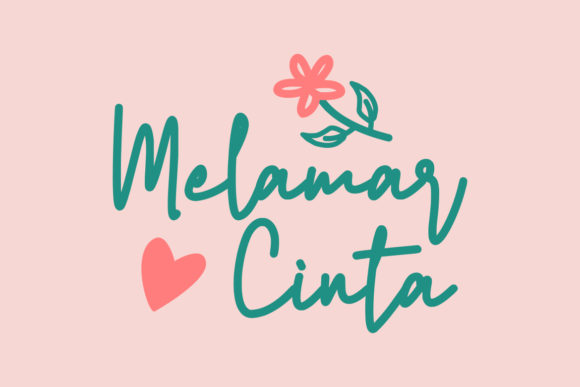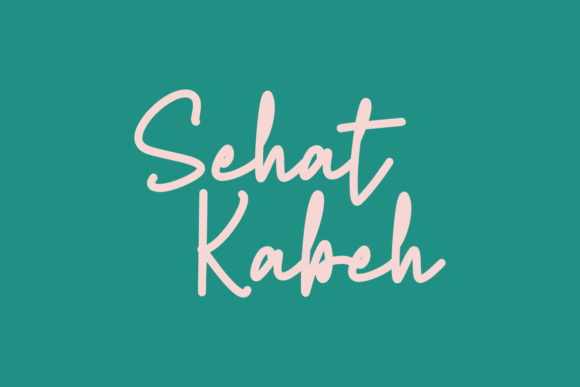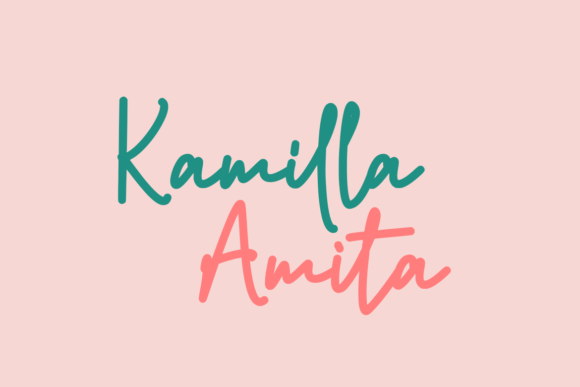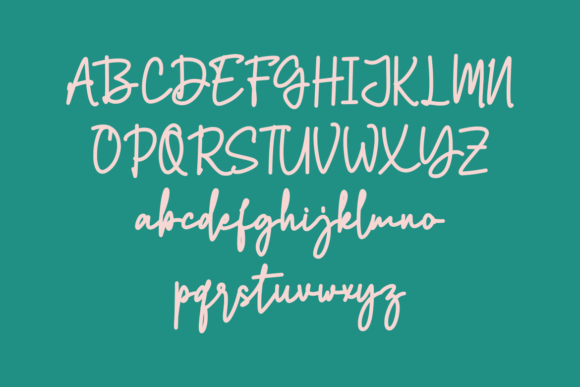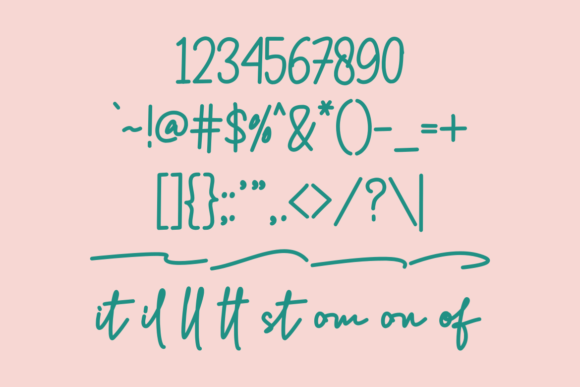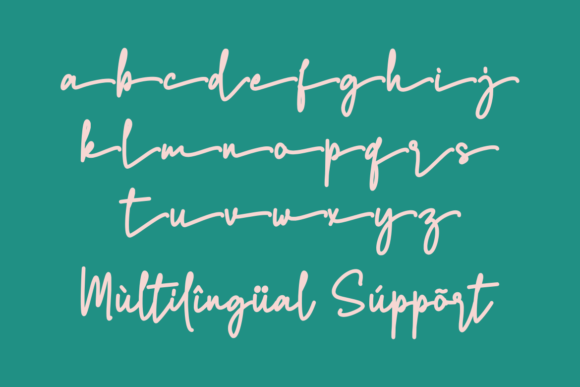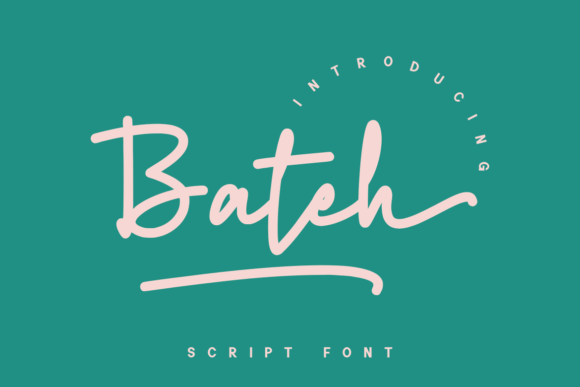
Bateh Font: Elevate Your Designs with Delicate Elegance
In the realm of typography, few fonts manage to capture the essence of elegance and versatility as effectively as the Bateh Font. This delicate and elegant handwritten font has been making waves in the design community, and for good reason. Its distinct and well-balanced letters make it a masterpiece, perfect for designers and crafters looking to add a touch of sophistication to their projects.
The Characteristics of Bateh Font
Bateh Font is a true gem in the world of typography. Its unique characteristics include:
• Delicate and Elegant: Bateh boasts a refined and sophisticated aesthetic, making it perfect for projects that demand a high level of elegance.
• Handwritten Style: The font’s handwritten style lends a personal and organic feel to any design, setting it apart from more traditional fonts.
• Distinct and Well-Balanced Letters: Each letter in the Bateh Font is meticulously crafted to ensure a harmonious and balanced look, making it a joy to read and behold.
• Incredibly Versatile: Whether you’re working on a wedding invitation, a branding project, or a digital platform, Bateh adapts seamlessly to any context.
Why Designers and Crafters Love Bateh Font
Bateh Font’s versatility and elegance have won the hearts of designers and crafters worldwide. Here are a few reasons why:
• Enhances Readability: Despite its delicate nature, Bateh Font maintains excellent readability, making it suitable for both headings and body text.
• Perfect for Branding: The unique and elegant style of Bateh makes it an excellent choice for branding projects, helping businesses stand out with a distinctive voice.
• Easy to Pair: Bateh Font pairs well with a variety of other fonts, offering endless possibilities for creative combinations.
• Supports Multiple Languages: For designers working on international projects, Bateh Font’s extensive language support is a significant advantage.
Creative Applications of Bateh Font
The creative potential of Bateh Font is vast. Here are some popular applications:
• Wedding and Event Stationery: Add a touch of elegance to wedding invitations, save-the-date cards, and other event materials.
• Branding and Packaging: Elevate your brand’s visual identity with Bateh’s sophisticated and distinctive style.
• Digital Platforms: Use Bateh Font to create stunning website headers, social media graphics, and digital advertisements.
• Art and Craft Projects: Incorporate Bateh into your craft projects, such as handmade cards, journaling, and scrapbooking.
Tips for Using Bateh Font Effectively
To get the most out of Bateh Font, consider the following tips:
• Experiment with Sizes: Bateh Font looks beautiful in various sizes. Experiment to find the perfect balance for your design.
• Play with Colors: While Bateh Font is stunning in black, don’t be afraid to explore different colors to match your brand or project’s aesthetic.
• Combine with Images: Pair Bateh with high-quality images or illustrations to create visually striking compositions.
• Maintain Consistency: For cohesive branding, use Bateh Font consistently across all your materials.
Bateh Font is more than just a typeface; it’s a design statement. Its delicate elegance, versatility, and distinct character make it an invaluable asset for designers and crafters. Whether you’re looking to elevate your branding, create stunning stationery, or enhance your digital projects, Bateh Font is sure to inspire and impress. Fall in love with its incredibly versatile style and use it to create spectacular designs that leave a lasting impression.